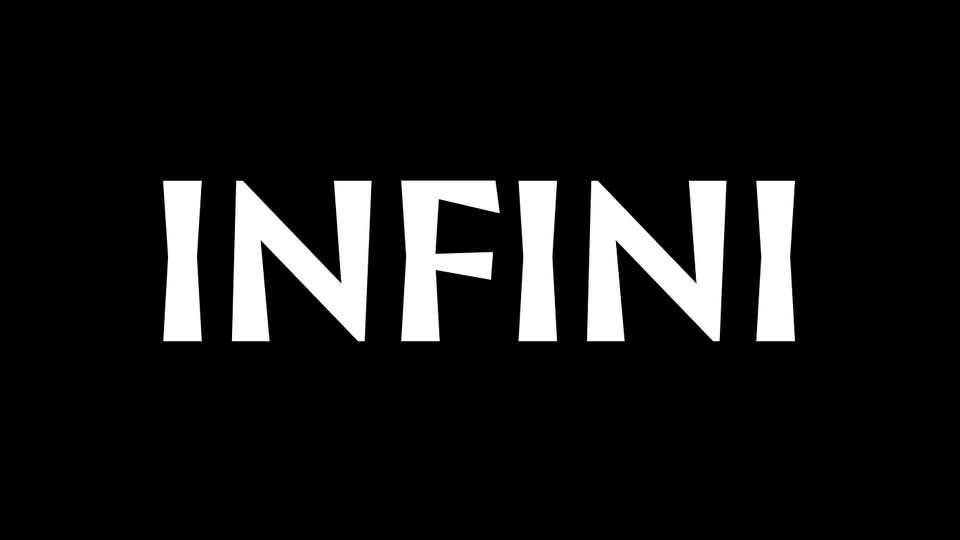
Download Infini typeface, a unique display font family with a decidedly contemporary design. Infini inspired by epigraphic writing, its various styles – roman, italic and bold – are the upshot of a fruitful dialogue with the history of typography.
Designer: Sandrine Nugue